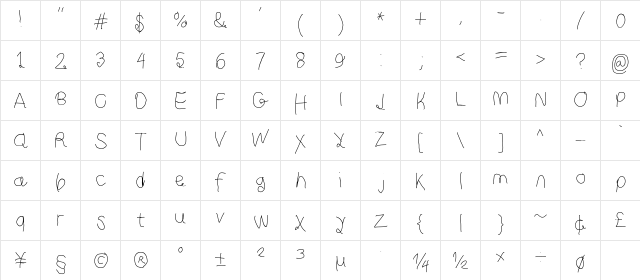
Curly Kue Thin
Design Context for Curly Kue Typeface
Curly Kue is a composed and adaptable typeface that performs quietly and consistently across a wide range of design contexts. Its slender proportions lend an understated elegance to any composition.